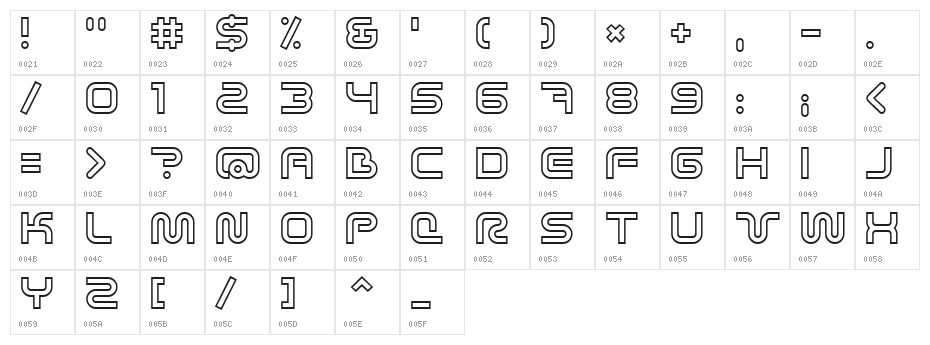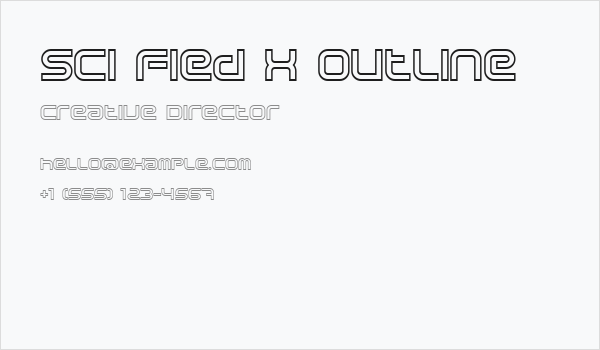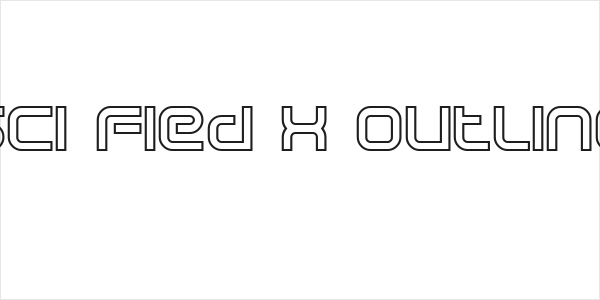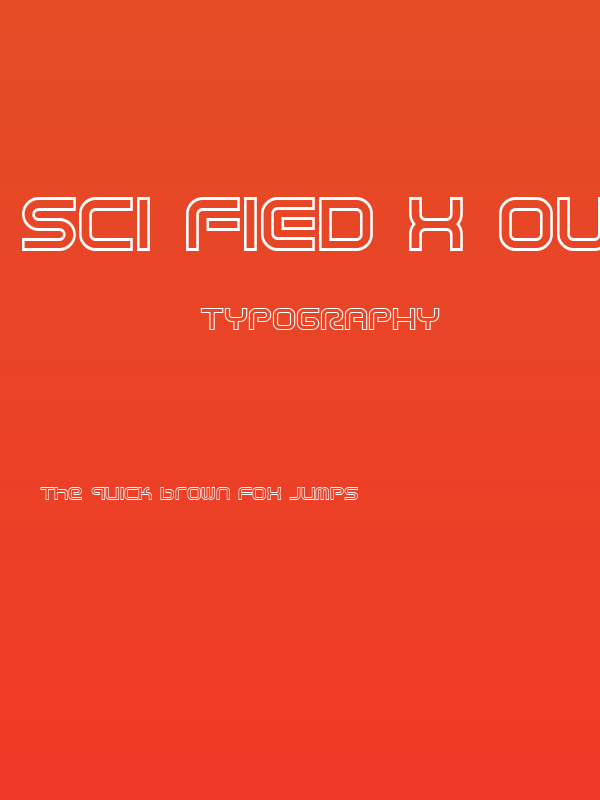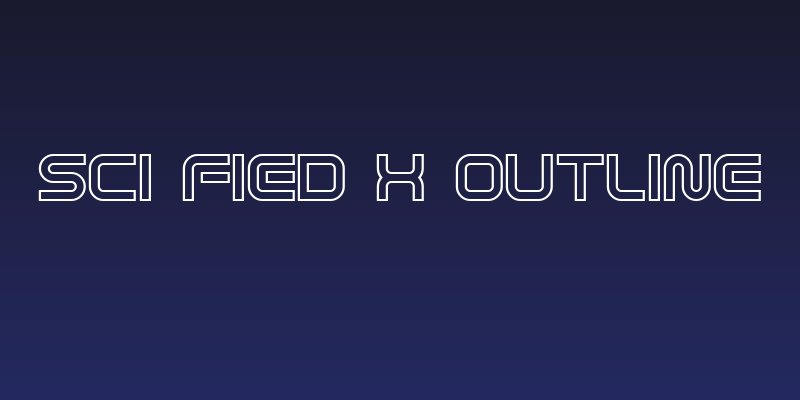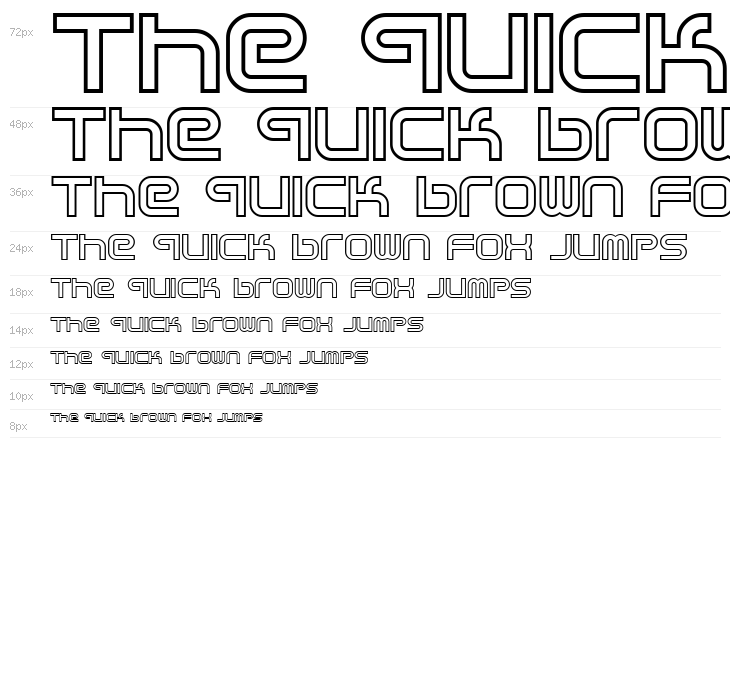
Sci Fied X Outline Font
Sci Fied X Outline Description
This font features a futuristic, outline style with geometric shapes and clean lines. The characters are constructed with a consistent stroke width, creating a uniform and modern appearance. The uppercase and lowercase letters maintain a cohesive design, with rounded edges and a structured form that evokes a sense of technology and innovation. The numerals and special characters follow the same design principles, ensuring a seamless integration across all elements. This font's unique outline style makes it stand out, offering a visually striking option for creative projects.